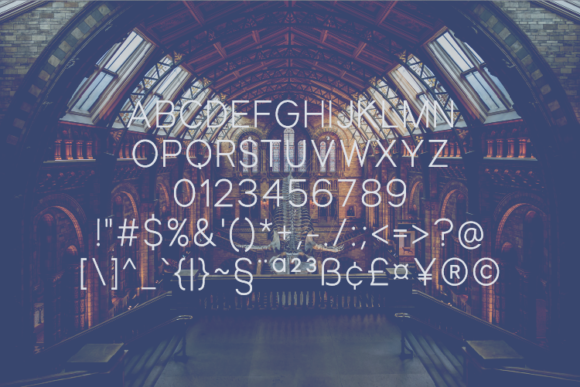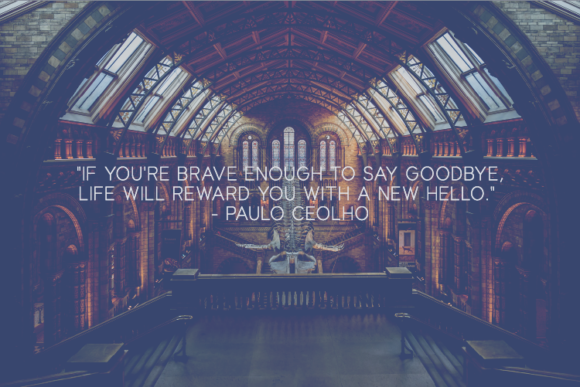
Introduction to Poshtion Font
Have you ever stared at a blank canvas, struggling to find the perfect font to bring your creative vision to life? That was me, until I discovered the sleek and modern Poshtion Font. Its thin letters and simple sans serif design make it the ultimate go-to for designers looking to add a touch of futurism to their projects.
Whether you’re creating stunning logos, gorgeous invitations, or high-quality design assets, the Poshtion Font is a valuable resource that can elevate your work to the next level. With its versatility and modern aesthetic, it’s no wonder why designers are flocking to this free download as a top design resource.
From transparent backgrounds to intricate design elements, the Poshtion Font is the perfect tool for any creative project that requires a cutting-edge look.
Key Features of Poshtion Font
- High-quality design resource for creative projects, ideal for use in graphic design, digital art, and typography.
- Designed with a high-resolution image, perfect for use in high-quality print materials and digital displays.
- Perfect for use in creative projects that require a unique and eye-catching font, such as logos, branding materials, and advertising campaigns.
Honest Review: Poshtion Font
As a designer, I’m always on the lookout for high-quality design resources to elevate my creative projects. Recently, I stumbled upon the Poshtion Font, and I must say it’s been a game-changer.
- High-quality design: The Poshtion Font is meticulously crafted, ensuring that every character is precise and visually appealing.
- Transparent background: This feature is perfect for designers who want to create seamless designs with a clean and modern look.
- Limited character set: The Poshtion Font has a relatively small character set, which might be a limitation for designers who need to work with a wide range of characters.
- No bold or italic variations: The font only comes in regular weight, which might not be suitable for designs that require bold or italic text.
Overall, the Poshtion Font is a great addition to any designer’s toolkit. While it has its limitations, its high-quality design and free availability make it a worthwhile resource for any creative project.
Poshtion Font is perfect for creative projects such as logos, brochures, business cards, and social media graphics. It’s also great for use in presentations, infographics, and other visual content.